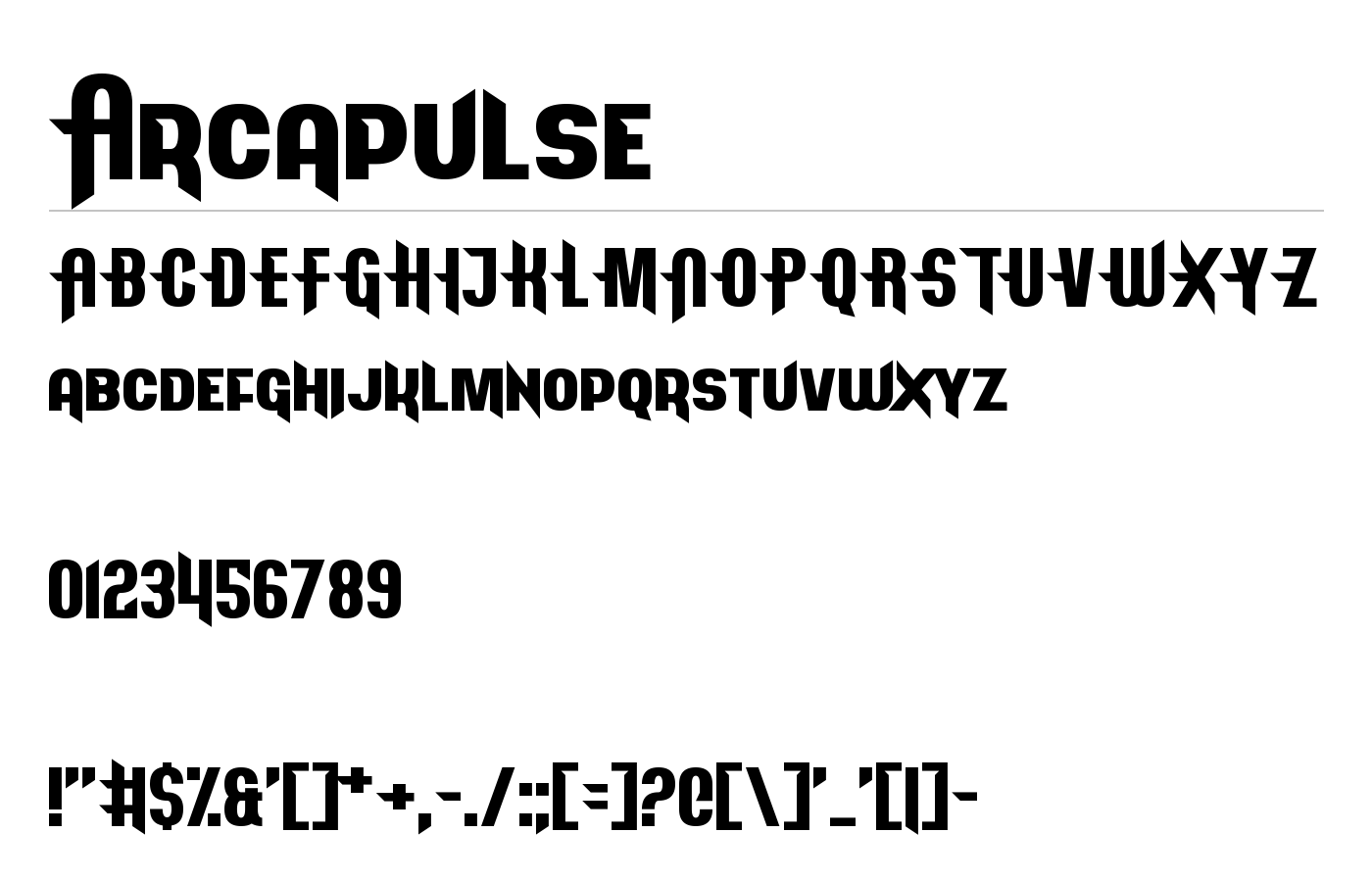
Arcapulse is a bold and striking sans serif font with a futuristic, geometric design marked by sharp angles and distinctive cut-out details. Its tall, condensed letterforms and high contrast between thick strokes create a strong visual impact, making it ideal for modern branding, headlines, and logos that need to command attention. This font’s unique style evokes innovation and energy, perfect for tech, gaming, and avant-garde projects looking to convey a powerful, edgy personality.
Arcapulse Font
About Arcapulse Font